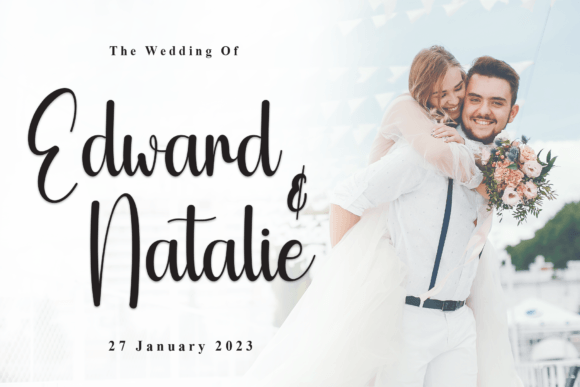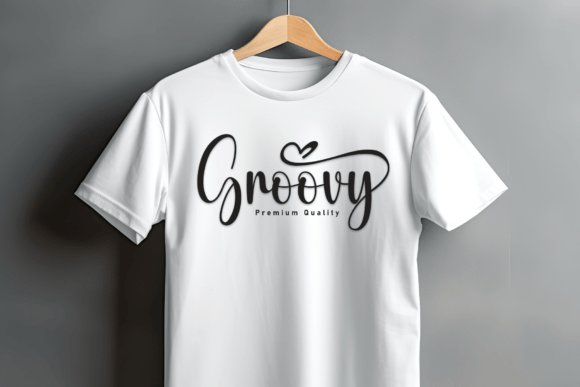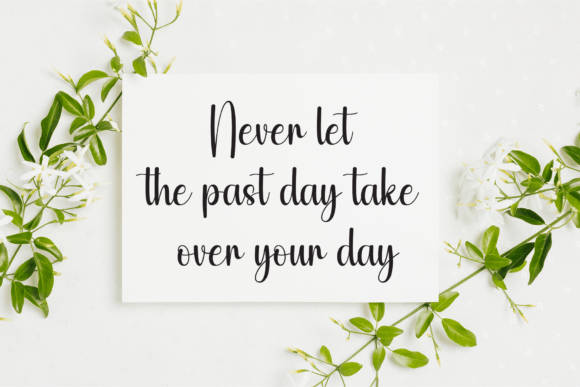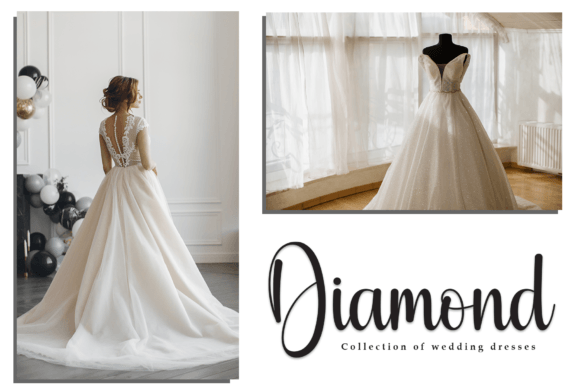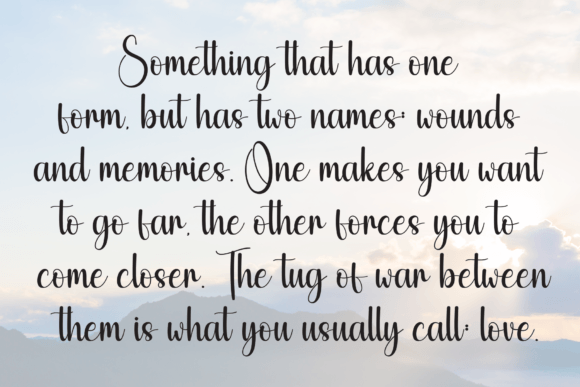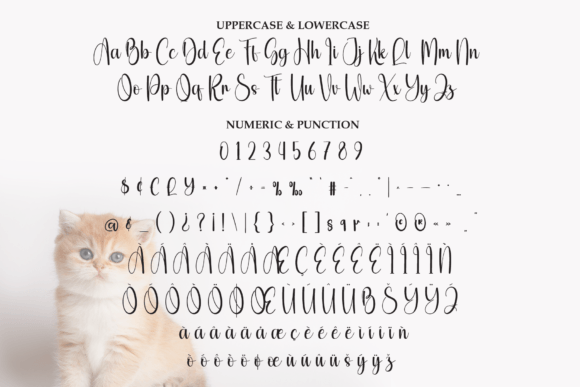
Introducing Beauty Kitten Font: The Ultimate Choice for Adding a Personal Touch
Are you tired of using the same old fonts for your design projects? Do you want to add a personal touch that sets your work apart from the rest? Look no further than the Beauty Kitten font, a delightful handwritten font that radiates warmth and friendliness. In this article, we’ll explore the unique features of Beauty Kitten and how it can elevate your designs to the next level.
Handwritten fonts have a way of capturing the essence of human emotion and personality. They add a touch of warmth and authenticity to any design project, making it more relatable and engaging. Beauty Kitten is no exception. Its playful strokes and charming irregularities make it the perfect choice for designers and crafters looking to add a personal touch to their work.
What Makes Beauty Kitten Special?
So, what sets Beauty Kitten apart from other handwritten fonts? Here are just a few of its unique features:
- Playful strokes: Beauty Kitten’s strokes are playful and carefree, giving it a lively and energetic feel.
- Charming irregularities: The font’s irregularities add to its charm, making it feel more human and less robotic.
- Warm and friendly: Beauty Kitten radiates warmth and friendliness, making it perfect for designs that require a personal touch.
Beauty Kitten is a versatile font that can be used for a wide range of design projects, including:
- Invitations: Add a personal touch to your invitations with Beauty Kitten’s playful and charming strokes.
- Greeting cards: Make your greeting cards more special with Beauty Kitten’s warm and friendly feel.
- Social media posts: Stand out on social media with Beauty Kitten’s unique and eye-catching font style.
Why Designers and Crafters Love Beauty Kitten
Designers and crafters love Beauty Kitten for a variety of reasons:
- Customizable: The font can be customized to fit your design needs, making it perfect for a wide range of projects.
- Unique style: Beauty Kitten’s unique style sets it apart from other fonts, making it a great choice for designers and crafters looking to add a personal touch to their work.
Tips for Using Beauty Kitten in Your Designs
Here are a few tips for using Beauty Kitten in your designs:
- Use it sparingly: Beauty Kitten is a bold font, so use it sparingly to avoid overwhelming your design.
- Pair it with other fonts: Pair Beauty Kitten with other fonts to create a unique and eye-catching design.